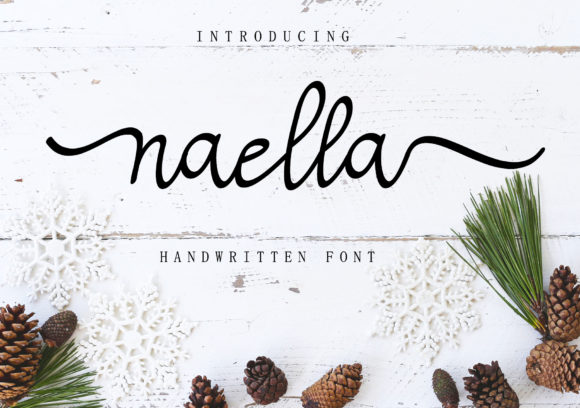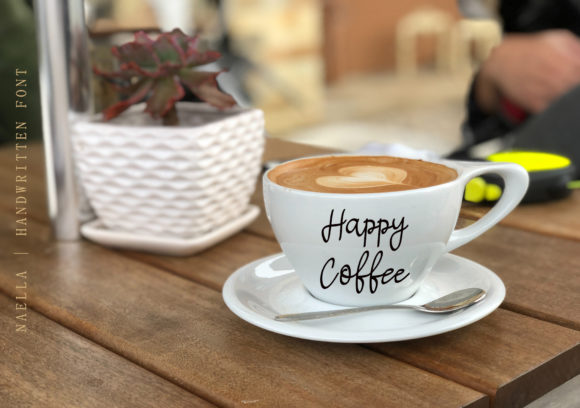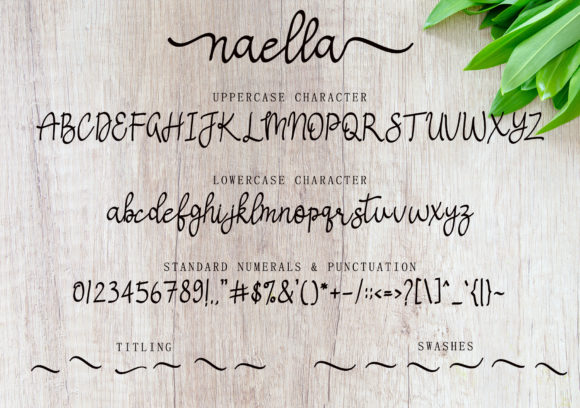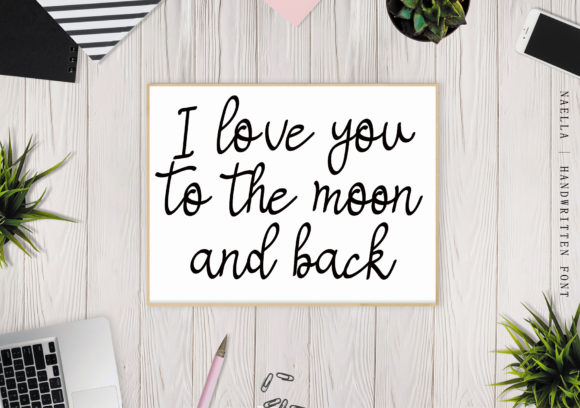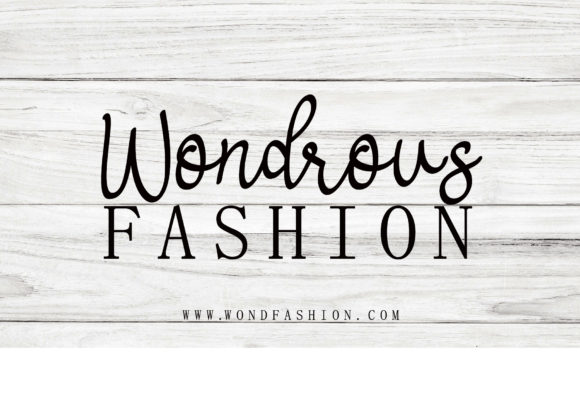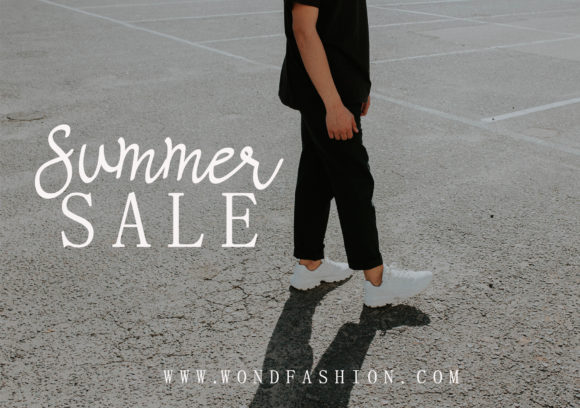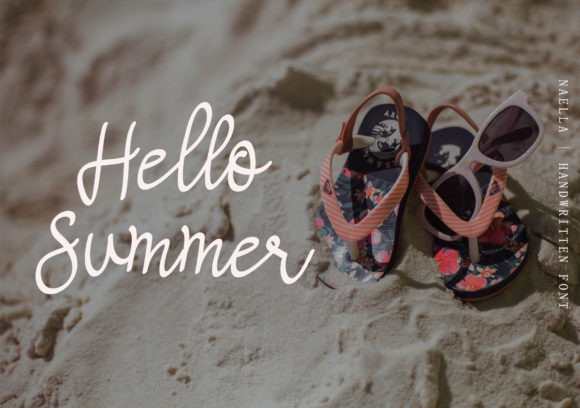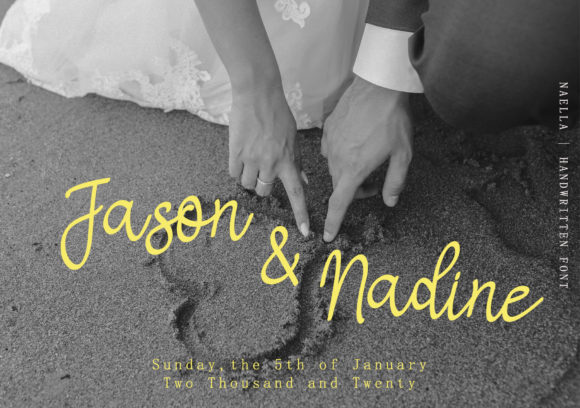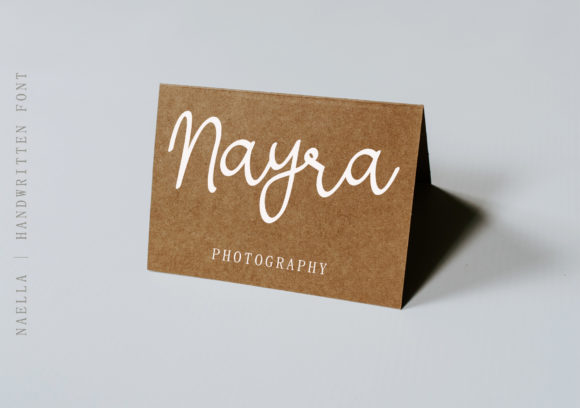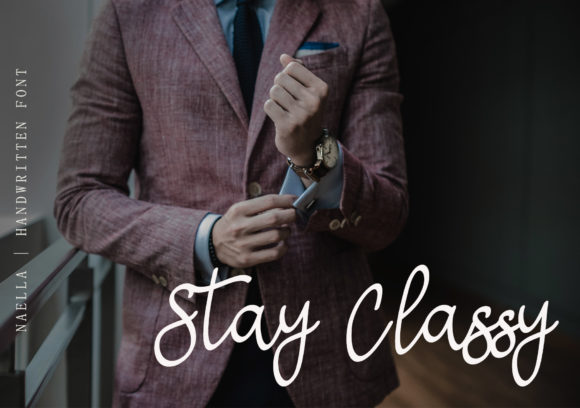
HomeScript FontsNaella Font Script Fonts Naella Font FacebookXPinterestWhatsApp Naella Font Poster 2 Naella Font Poster 3 Naella Font Poster 4 Naella Font Poster 5 Naella Font Poster 6 Naella Font Poster 7 Naella Font Poster 8 Naella Font Poster 9 Naella Font Poster 10 Naella Font Poster 11 About Naella Font Naella is a casual and elegant handwritten script. It’s a perfect addition to any crafter’s toolbox! DOWNLOAD ON CREATIVE FABRICAThis font is sold and delivered by Creative Fabrica. Font Canyon may earn a commission if you buy through this link. People also explored Sweet Charm Font Khaleiyfa Font Deddy Rainbow Font Arale Font Wenistar Font Marcella Agatha Font Caporion Font Tallenta Font 340 0 TagsNaella Font Previous articleUnforgiven FontNext articleAlimandi Font LEAVE A REPLY Cancel reply Comment: Please enter your comment! Name:* Please enter your name here Email:* You have entered an incorrect email address! Please enter your email address here Website: Save my name, email, and website in this browser for the next time I comment. Personal Use Free Carnivals Personal Use Free Read more about this font Good Mood Personal Use Free Read more about this font Gratisan Personal Use Free Read more about this font Starting Live Personal Use Free Read more about this font BLOG 5 Fonts That Will Dominate Design Trends in 2026 5 Fonts for 2026 That Will Dominate Design Trends Typography plays a critical role in visual communication, and as we look ahead to 2026, it’s... How to Cut Any Font on Cricut: Convert a Font to SVG (Free) Top 10 Handwritten Fonts That Elevate Your Designs Fonts That Capture the Spirit of New York City